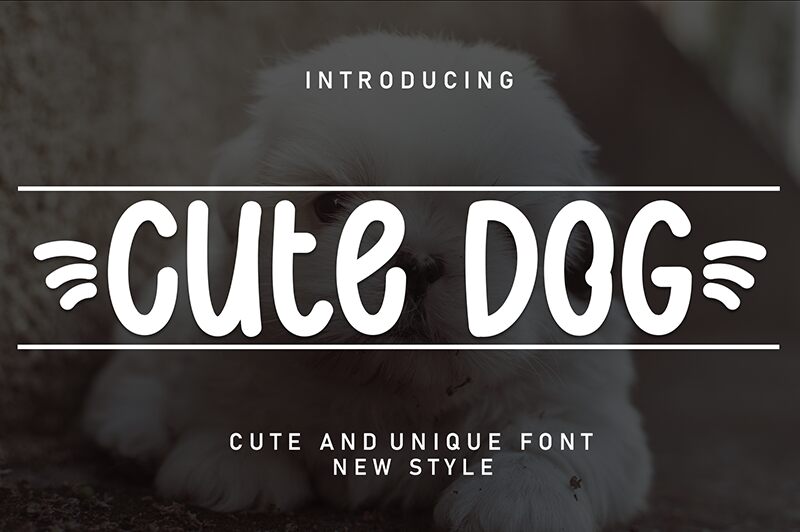
Cute Dog
Cute Dog font, designed by Andi Moz, is a playful cartoon display font with a delightful handwritten style. Its condensed form and casual, friendly appeal make it stand out with a warm aesthetic. This approachable typeface offers contemporary charm and character that effortlessly draws attention to any visual project.
This free display font brings cuteness and positivity to invitations, birthday cards, cartoons, educational posters, children’s book covers and illustrations, t-shirt designs, game interfaces or infographics. Use it to create friendly food brochures or even as an eye-catching heading in your website design!
This is a sweet and friendly handwritten display font. Cute and fun, this font is ideal for writing wedding invitations, cards, or any other design that might need a playful touch!